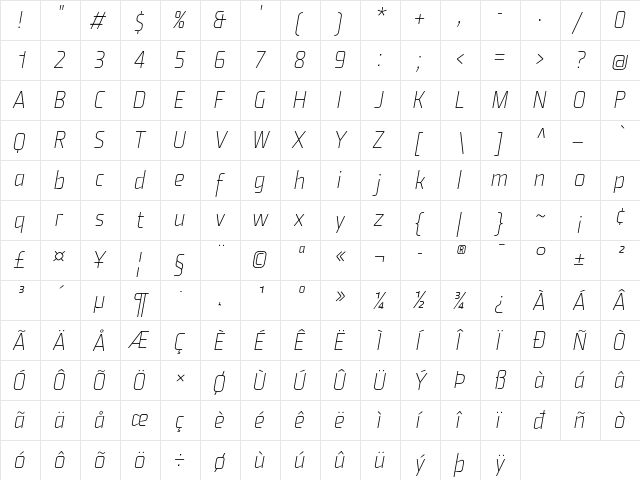
Fishmonger MT Italic
Design Context for Fishmonger MT Typeface
Fishmonger MT is a composed and adaptable typeface that performs quietly and consistently across a wide range of design contexts. The dynamic lean of this cut emphasises speed and emphasis in any layout.
Pro Tip: Use Fishmonger MT for emphasis, pull quotes, and subheadings where its slanted energy can add rhythm to the layout.